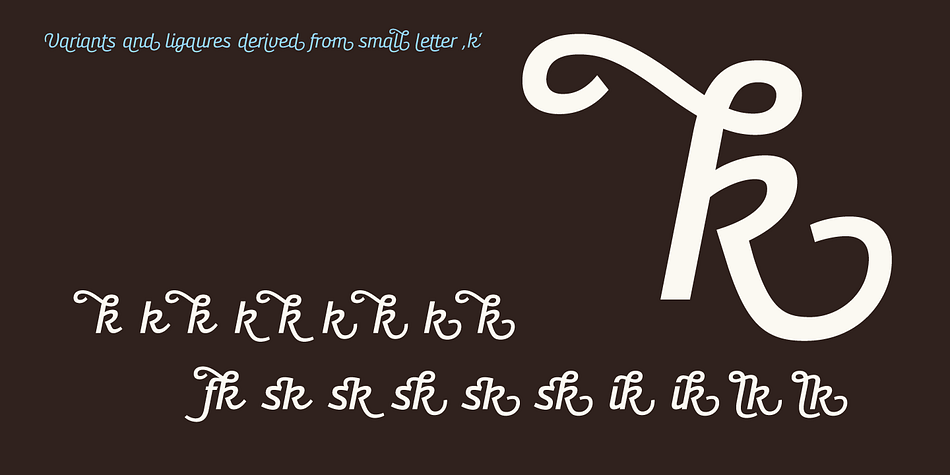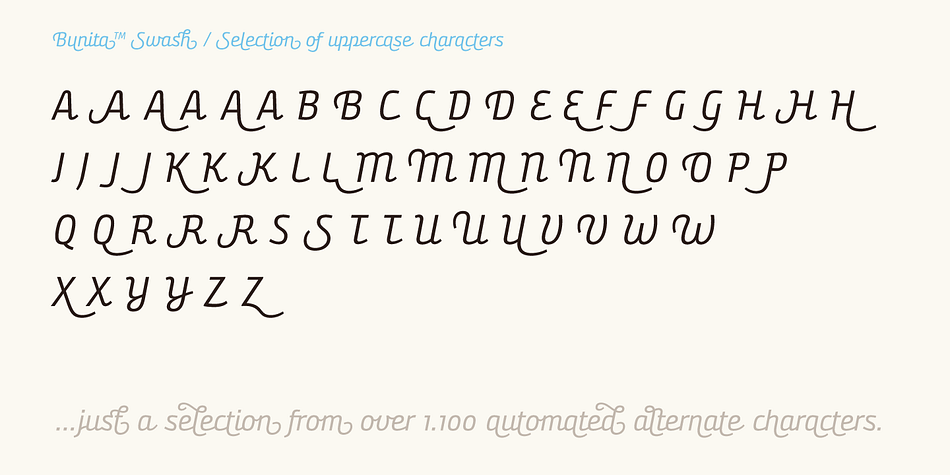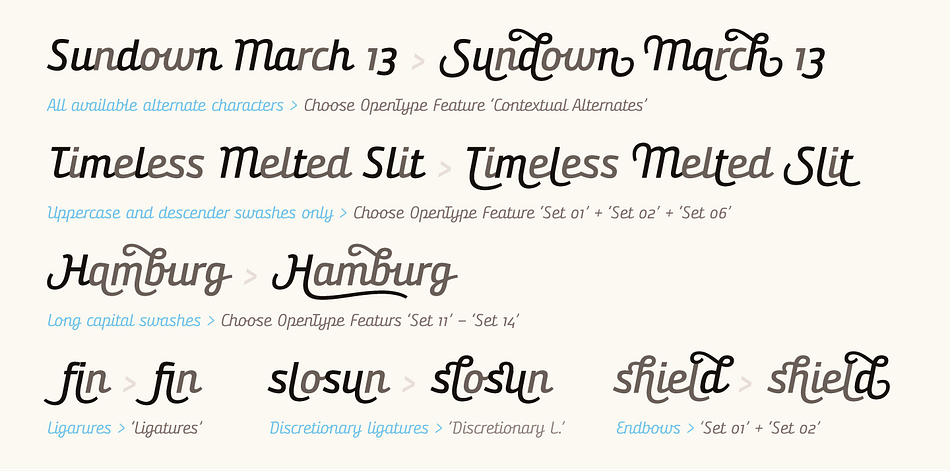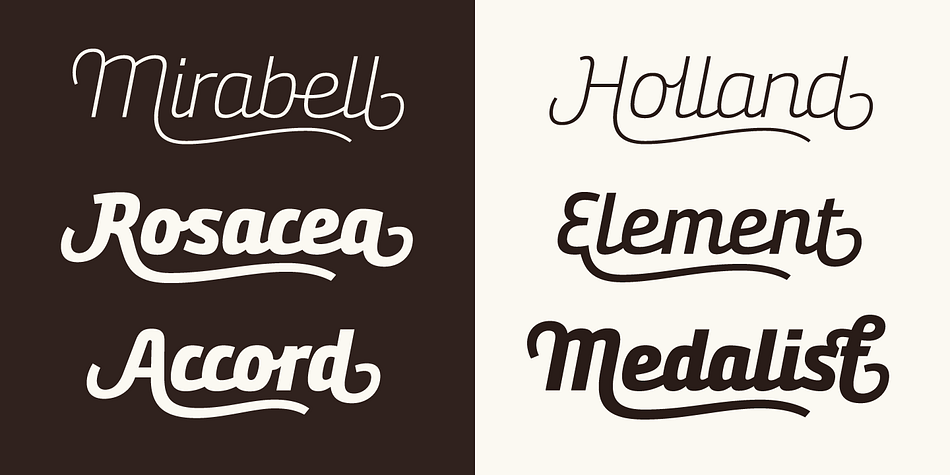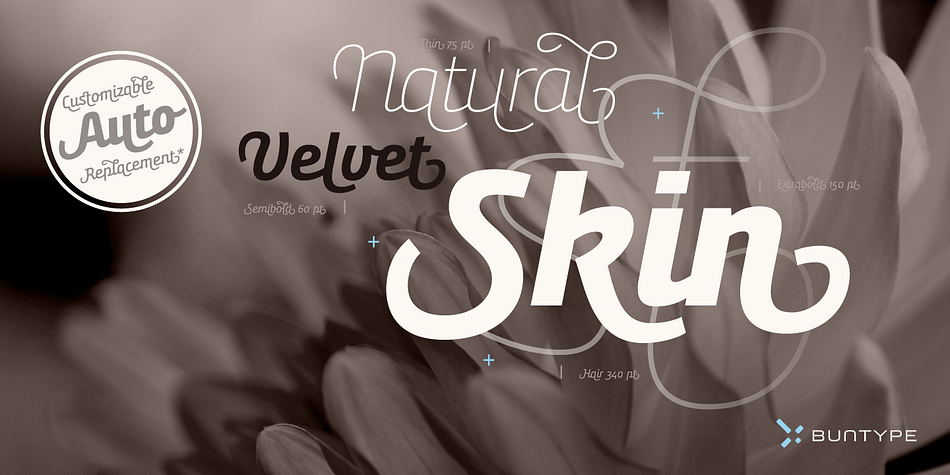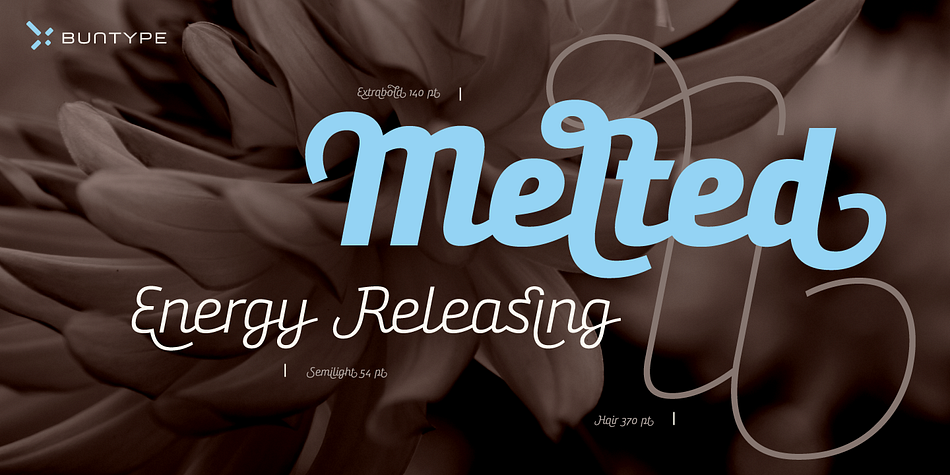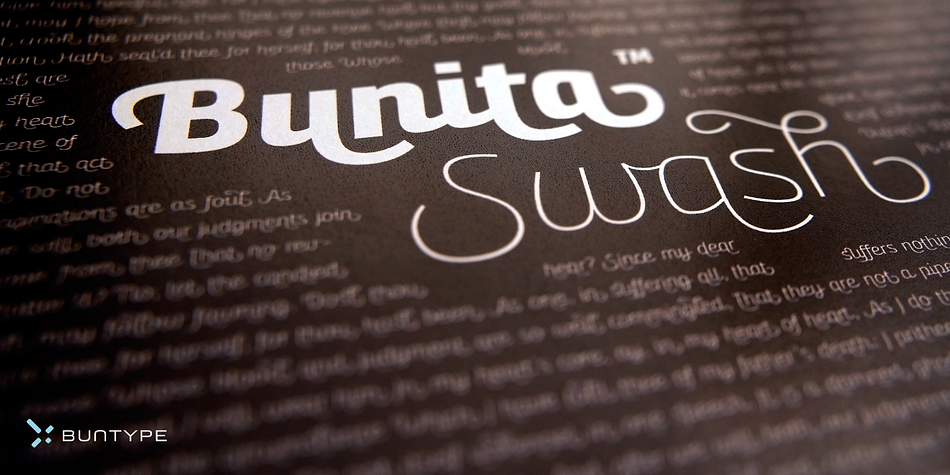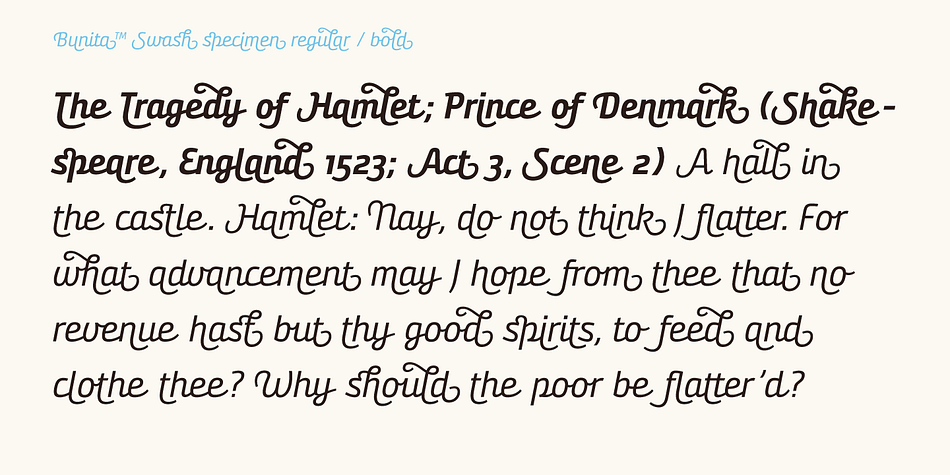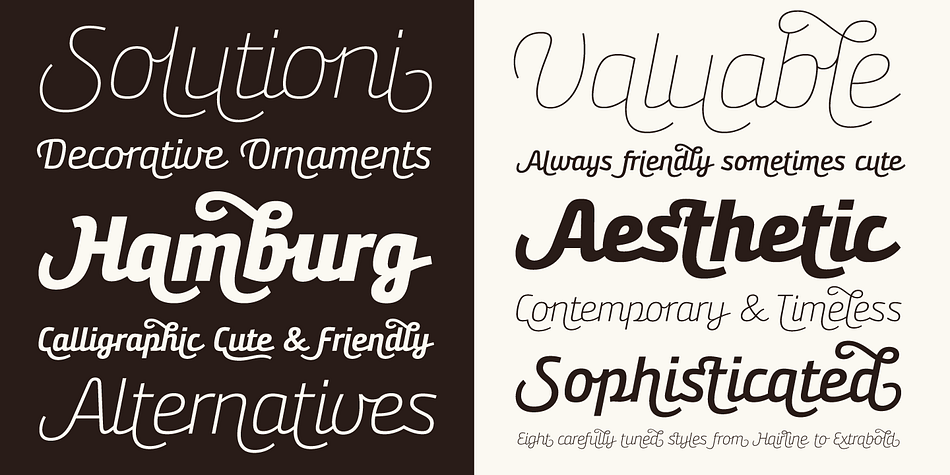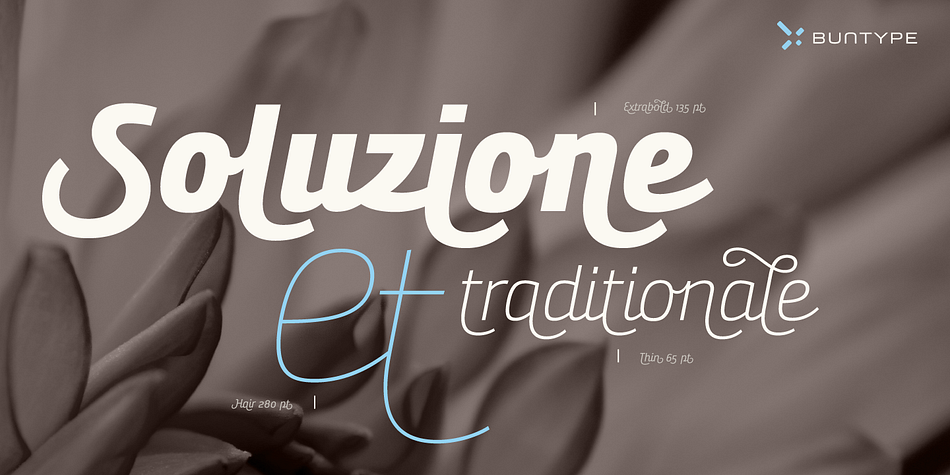
Designed by Ralf Sander and Petra Niedernolte, Bunita Swash is a script font family. This typeface has sixteen styles and was published by Buntype.
Bunita Swash - A contemporary script font
Based on a contemporary, modern sans typeface, Bunita Swash was inspired by traditional calligraphic script and handwritten faces.
The result is an outstanding script font with low contrast, a large x-height and open counters but also with a huge variety of ligatures, swashed or ribbonized characters and styles.
Bunita Swash is always beautyful and friendly. But it can also be cute, formal or elegant. All Depends on your choices from the numerous automated opentype
Due to the high customisability, Bunita Swash will fit a wide range of needs in various applications from large ambient displays to complex corporate designs.
Bunita Swash is available in 8 styles with ranging from Hair to ExtraBold. Each style contains more than 1600 characters for at least 58 languages. 1100 of them are alternate characters for contex- tual, swash and ligature replacements.